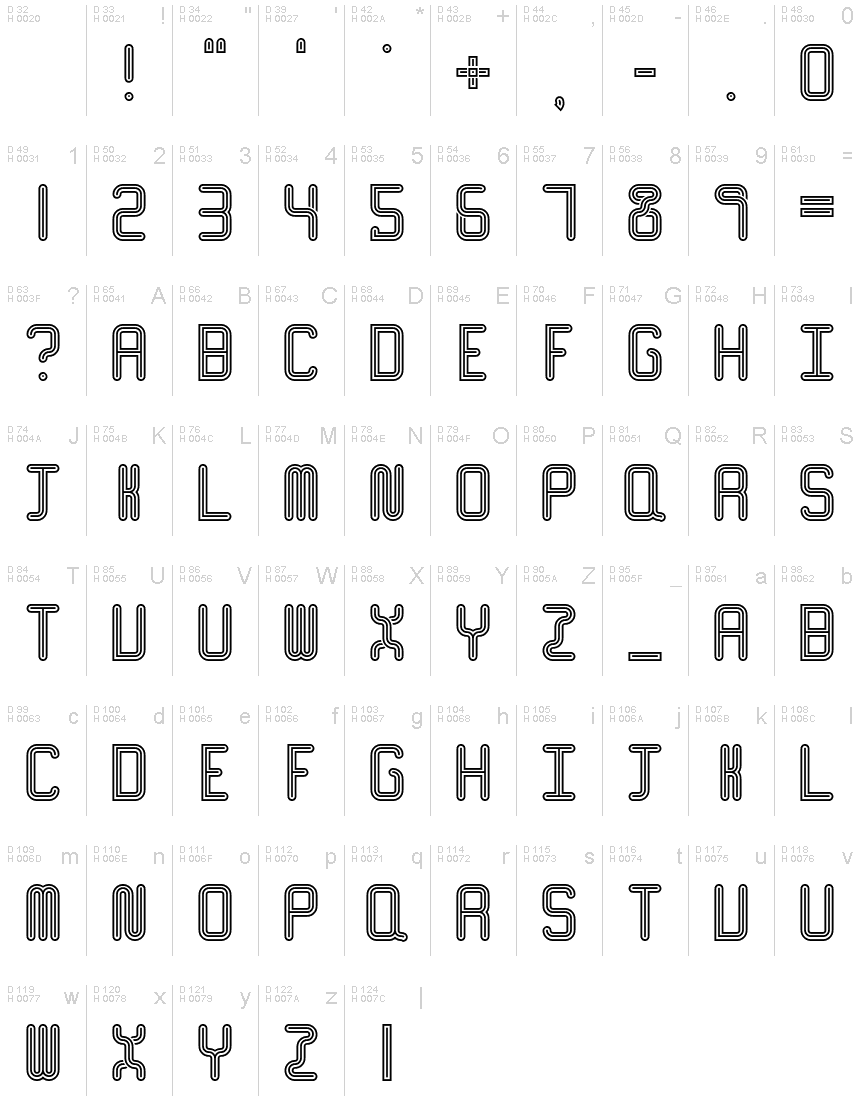
Prisma Regular
Prisma, a groovy semi-light display font by ImGonnaTryToMakeFonts, exudes a retro charm with its condensed form. Its sleek and stylish design makes it perfect for creating eye-catching headlines, logos, and posters. Prisma's semi-light weight adds an airy touch to your designs while maintaining legibility. Whether you're working on a vintage-inspired project, a modern advertisement, or even an album cover for a funky band, Prisma will bring that groovy vibe that sets your work apart from the crowd. Let Prisma add a touch of nostalgia to your next creative endeavor!
2nd font, not too good, but who cares :)
Best used in bigger sizes
Designer description: Ok, I tried to make this one look like those glowing letters on the old fashioned juke-box things. If this looks like anybody's previous font, then apologies.